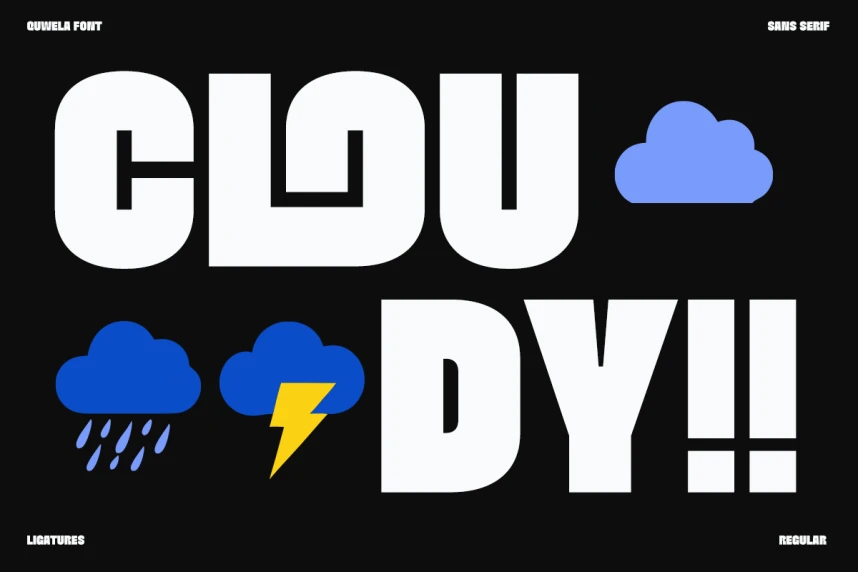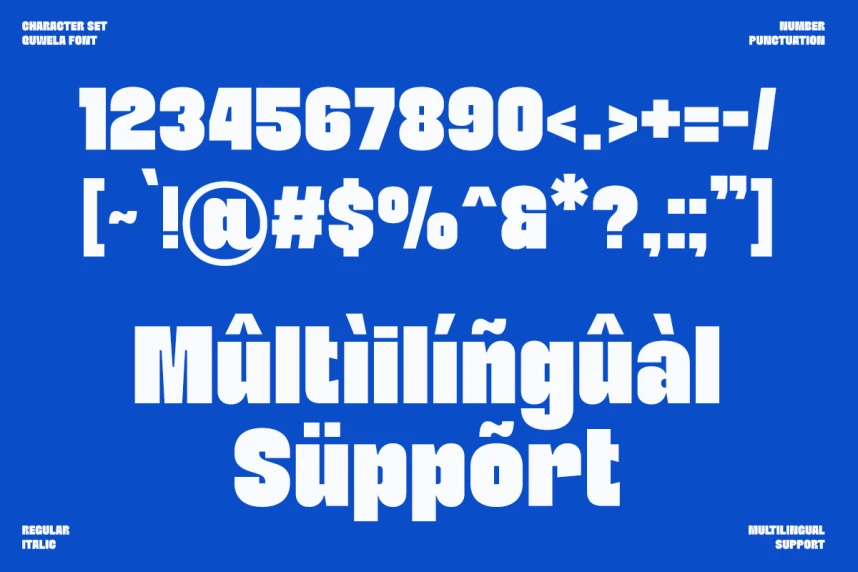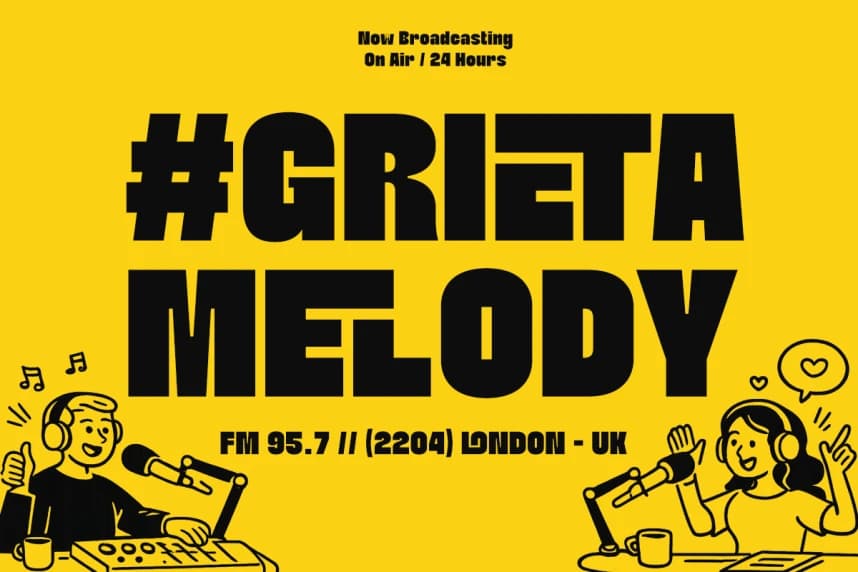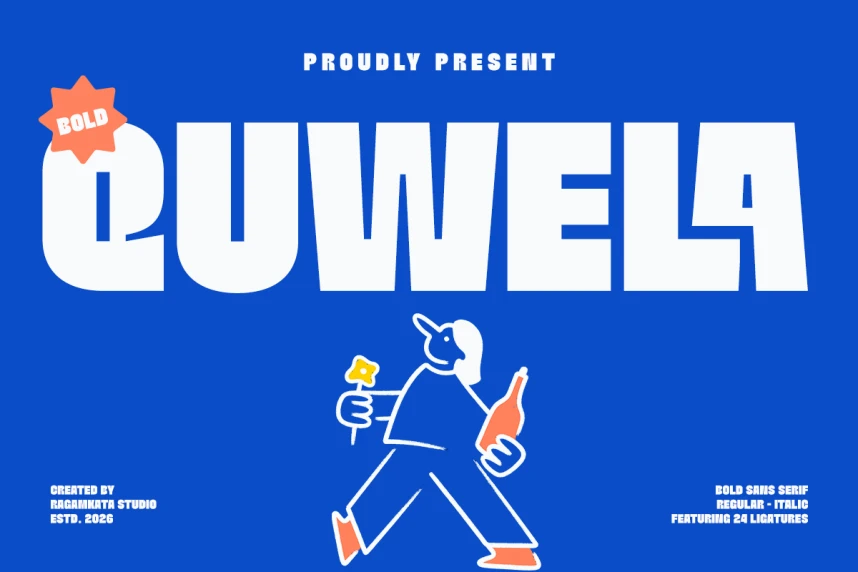
Quwela Font is a bold sans serif font designed to make a strong and playful visual statement. With its chunky letterforms and confident structure, it captures attention instantly while maintaining a clean and modern feel.